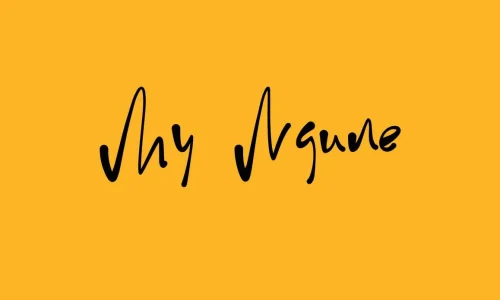
Rage font has a rough and unique texture and this typeface is designed by a well-known designer Ron Zwingelberg. Who has to design some popular fonts and this typeface is one of them. The family of this font style consists of more the 20 languages.
This Typeface family is a member of the Script family. This font has to have a bold and rough texture.
| Name | Rage Font |
| Designer | Ron Zwingelberg |